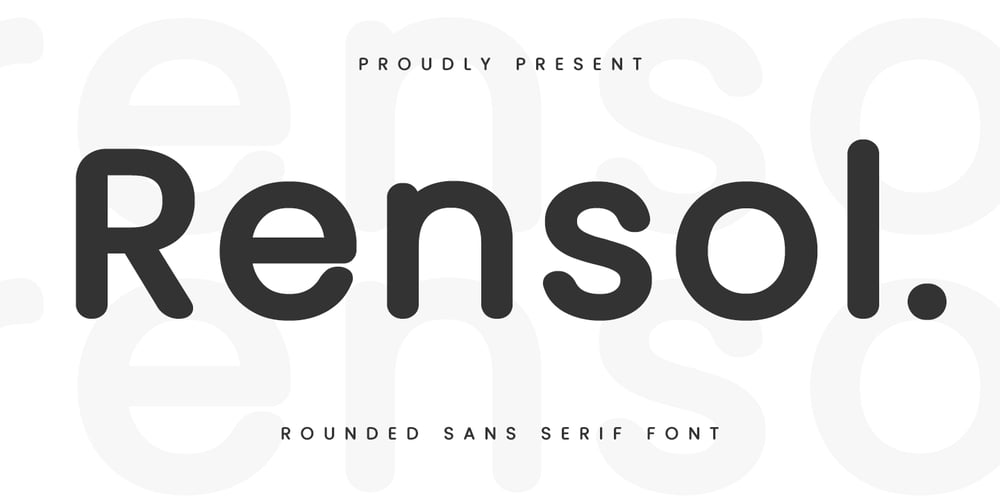
MC Rensol
MC Rensol font
MC Rensol Font Family was designed by Gilang Maulana and published by Maulana Creative. MC Rensol contains 1 styles and family package options. Rensol rounded sans serif font. Heavy stroke, fun character with ligatures. To give you an extra creative work. Rensol rounded sans serif font support multilingual language. This font is good for logo design, Social media, Movie Titles, Books Titles, a short text even a long text letter and good for your secondary text font with script or serif. Make a stunning work with Rensol rounded sans serif font.